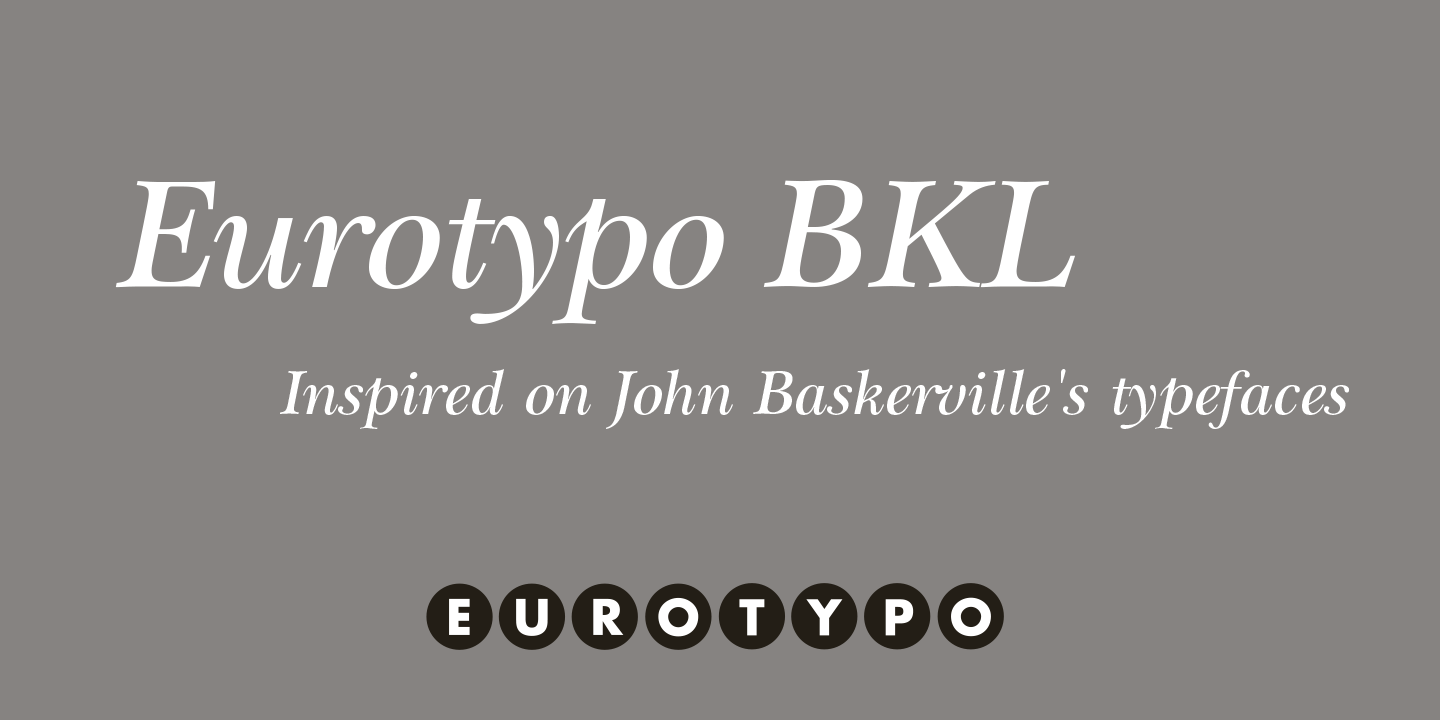
The Eurotypo BKL Font Free Download is ideal for book covers, formal invitations, editorial layouts, and elegant branding, offering a sophisticated, transitional serif aesthetic.
This font is exciting because its refined design, inspired by John Baskerville’s iconic typography, blends classic British style with modern digital precision for timeless appeal.
The Eurotypo BKL family includes Regular, Italic, Bold, Bold Italic, and Heavy styles, providing versatile options for dynamic typography.
Elevate your designs with the Eurotypo BKL Font Free Download, a serif typeface designed by Olcar Alcaide and published by Eurotypo in 2015. Inspired by the work of John Baskerville (1706–1775), this font captures the elegance of his transitional typography with square-proportioned capitals, open lowercase letters, and shorter ascenders and descenders for enhanced legibility. With 527+ glyphs, including OpenType features like ligatures, it’s perfect for headlines or body text in editorial designs or luxury branding. Available in OTF, TTF, and WOFF formats, it ensures crisp rendering across print and digital platforms. As 2025 design trends favor classic, refined typography, downloading Eurotypo BKL Font Free Download keeps your work sophisticated and impactful. Test it today at fontspring.com for personal use, and consider purchasing a commercial license at myfonts com for full access.